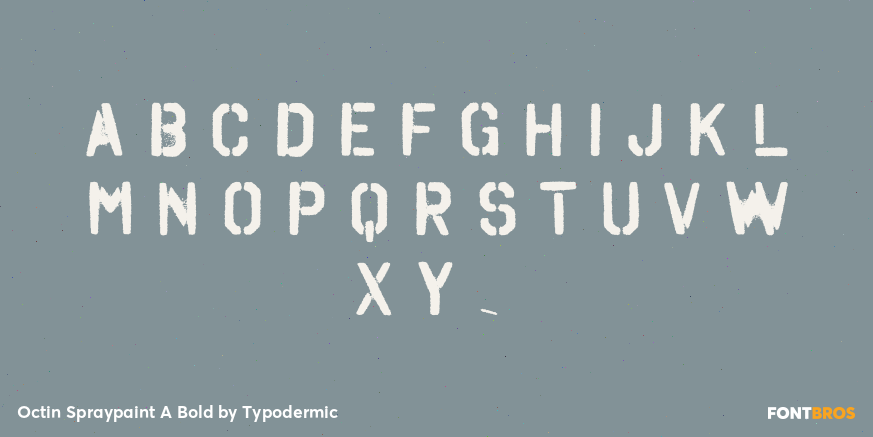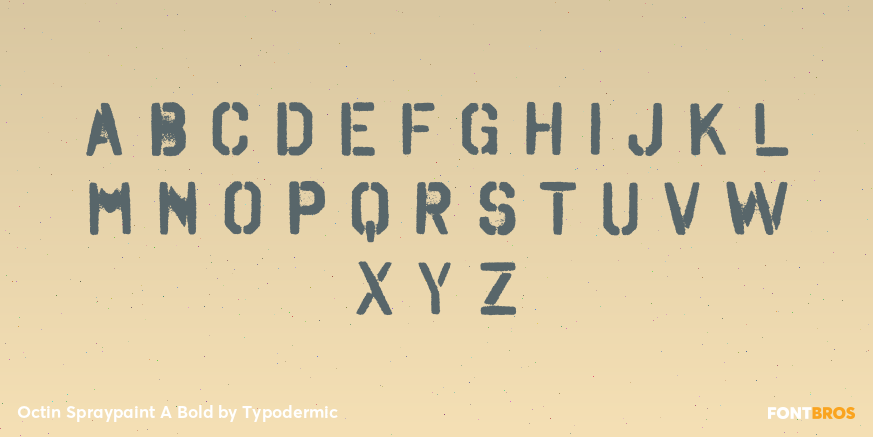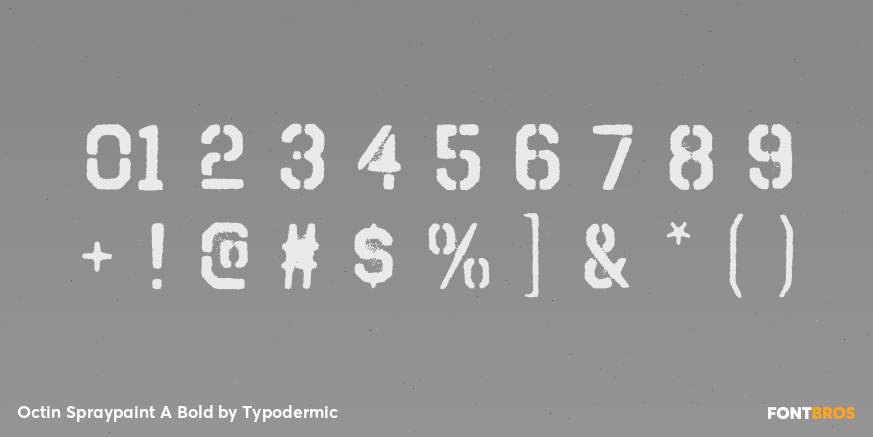
Octin Spraypaint A Bold
Octin Spraypaint A applies the family’s freshly sprayed stencil surface to an angular sans-serif alphabet. Clipped corners and unadorned stroke endings give it a direct, compact voice, while broken paint coverage keeps each word from looking like a clean digital stencil. It is the simpler structural branch of the family; Octin Spraypaint B uses slab serifs for a more emphatic athletic accent.
Use Octin Spraypaint A for fan-zone headlines, city-takeover graphics, streetwear and sneaker launches, temporary retail walls, design-festival signs, protest-exhibition titles, and fictional resistance markings. Its all-caps forms work best in short display text where the sprayed texture can remain visible. Regular, Bold, and Black provide three levels of emphasis without changing the underlying sans construction.
Octin Spraypaint A Bold by Typodermic